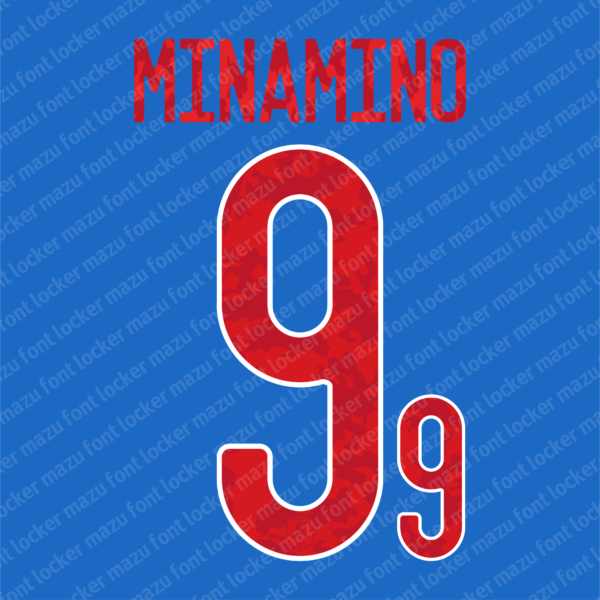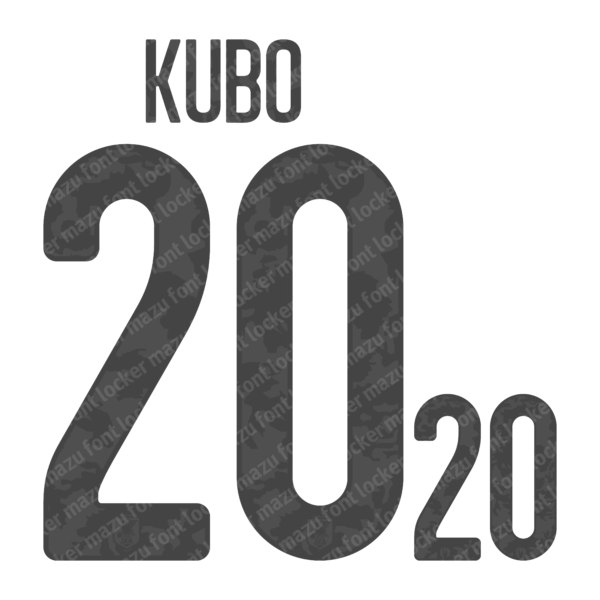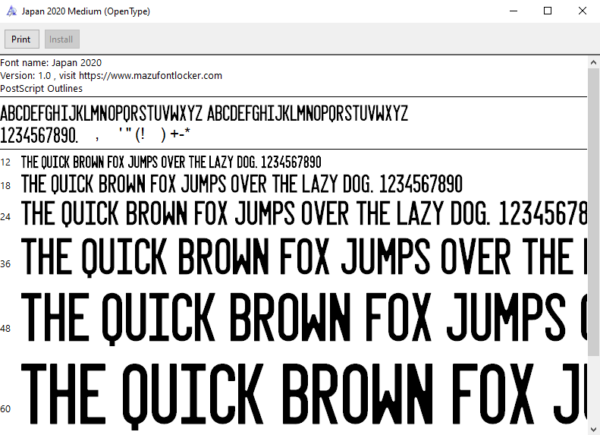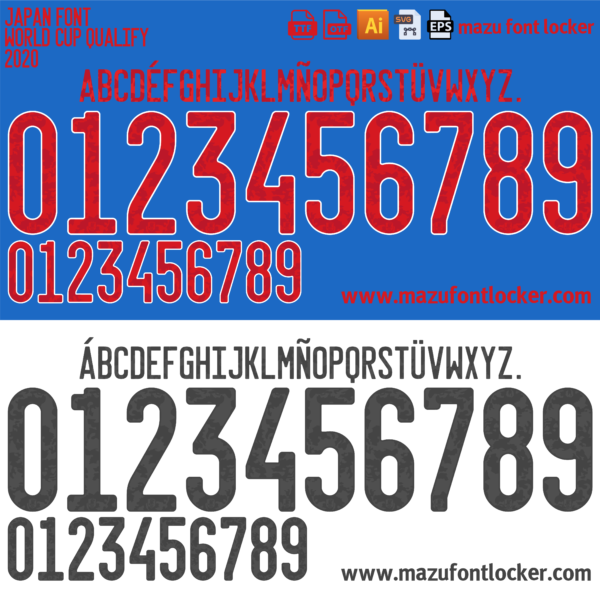
Japan 2020 Font Vector – Stunning Samurai Blue Kit
Japan 2020 Font is a high-quality football jersey font vector designed to replicate the official lettering and numbering style used during the 2020 season. This Japan 2020 font is perfect for designers, football fans, and creators who want accurate and professional jersey customisation.
Inspired by the official kit of Japan, this Japan 2020 font delivers a clean and authentic match-day appearance. Every letter and number has been carefully recreated to match the real jersey design, ensuring your projects look realistic and professional.
Japan 2020 Font Font Font Vector – Authentic Jersey Lettering
Japan 2020 Font font is a high-quality football jersey font vector created to replicate the official lettering and numbering style used during the iconic 2020 Season. Perfect for designers, football fans, and jersey customisation projects, this font set delivers an authentic and professional match-day appearance.
Inspired by the original Japan 2020 Font team kit, every letter and number has been carefully recreated to ensure accurate retro styling for both digital and print projects.
• Authentic 2020 Japan jersey lettering style
The authentic lettering style helps recreate the classic look of the Japan 2020 kit with professional accuracy.
Unlike generic jersey fonts, this set is designed with a strong focus on authenticity and accuracy. Every detail is based on the original match lettering style used during the Japan 2020 season, helping designers and collectors create realistic football shirt designs.
This Japan 2020 font vector set is designed for authentic football jersey customization and works perfectly for retro football projects, collector designs, and professional sportswear artwork.